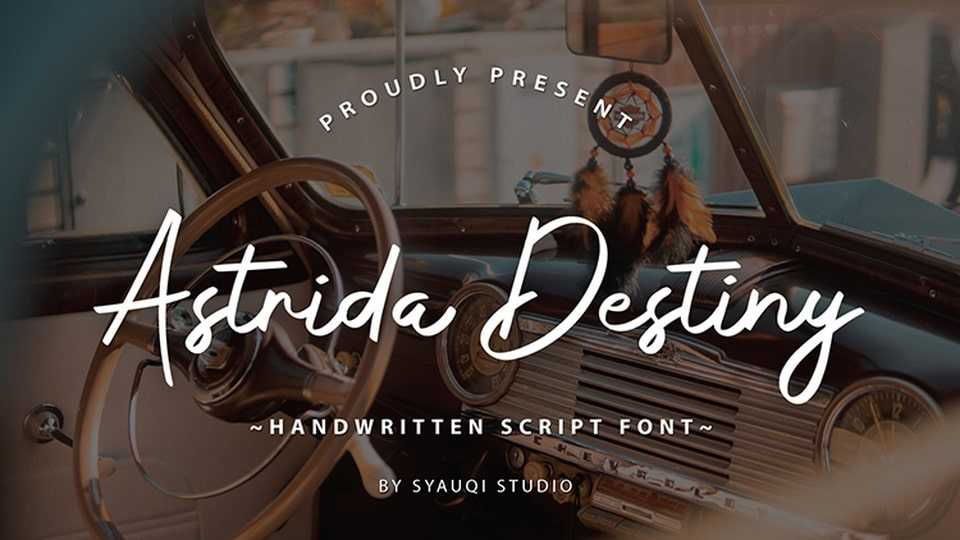
Download Astrida Destiny font, where timeless elegance meets contemporary sophistication in the realm of script calligraphy fonts.
Designer: Syauqi Studio